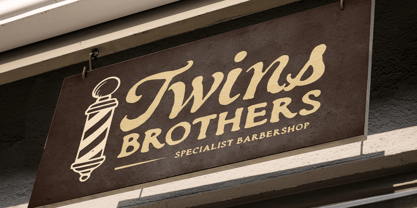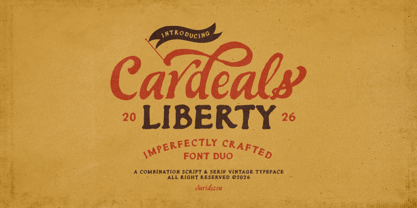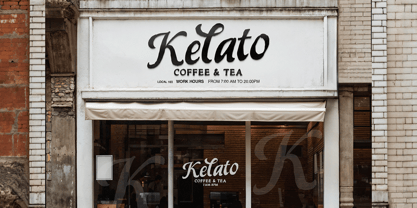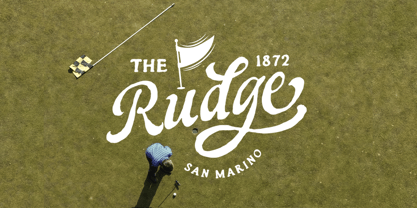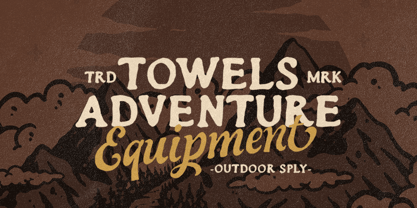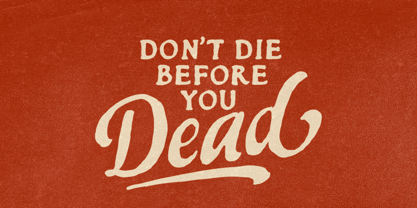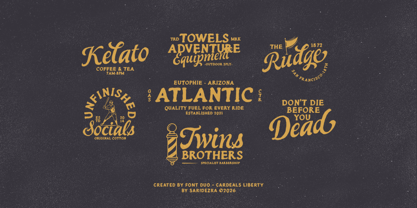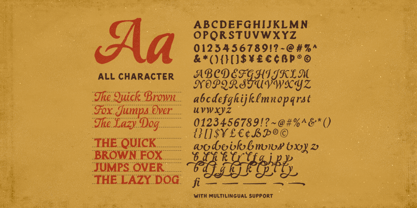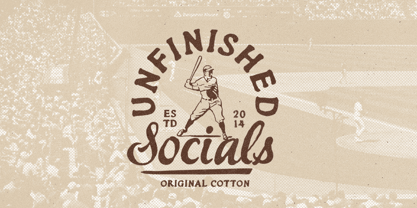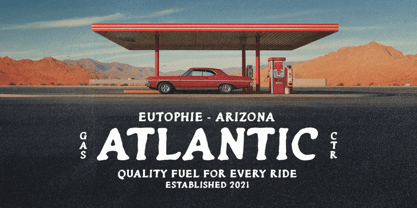
Cardeals
by Sarid Ezra
The Cardeals Font Family was designed by Sarid Ezra and published by Sarid Ezra. Cardeals contains 2 styles and family package options. More about this family
Cardeals is a bold font duo, imperfectly crafted to make it looks naturally hand-drawn. Comes with stylish script that contains alternates and underline, this font duo can make your project looks more stand out with human hand touch. You can use this set for any purposes such as branding, quotes, poster, especially for logotype. Cardeals also support multi language.